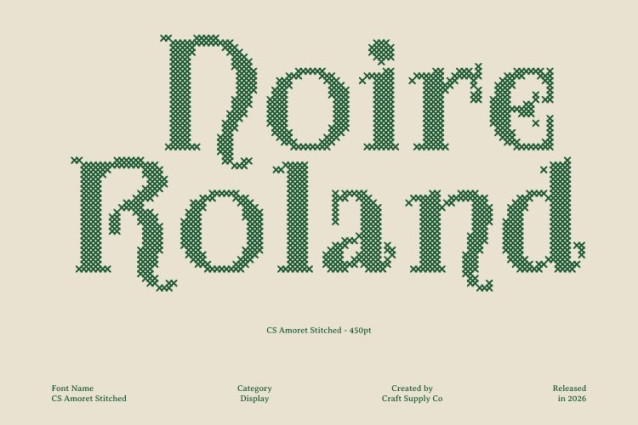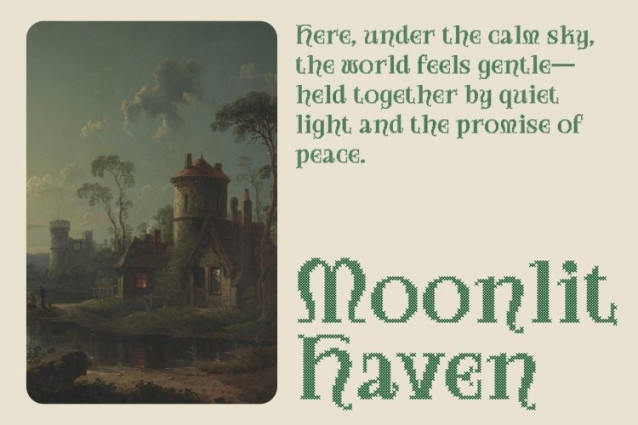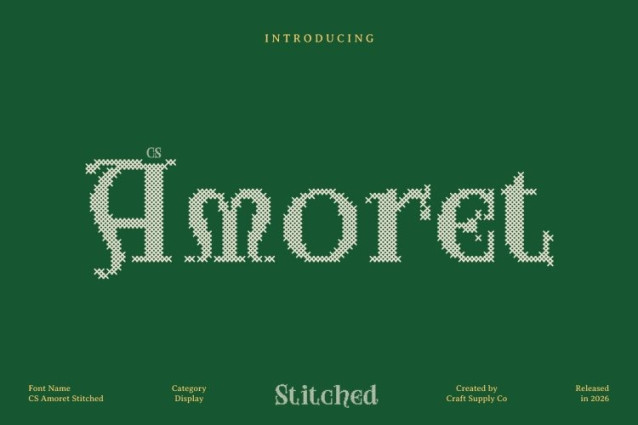
CS Amoret Stitched Font
CS Amoret Stitched Font is a display serif font that captures the elegance and artistry of the Art Nouveau movement. Its design features intricate, flowing lines and ornate serifs that blend refined sophistication with imaginative flair. Inspired by organic shapes and natural motifs, the graceful curves of each letterform create a visually captivating appearance.
Decorative Letterforms with Embossed Stitch Texture
The elegant curves and decorative flourishes of are complemented by a distinctive cross-shaped stitch pattern, creating an embossed and structured texture across every character. This stitched detail adds depth and tactility while introducing a classic, nostalgic, relaxed, and warm impression. The result is a font that feels both luxurious and personal, blending ornate design with a soft handcrafted aesthetic.
Sophisticated and Expressive Artistic Style
With its imaginative letterforms and flowing decorative structure, this font brings a unique artistic charm to any design. The balance between Art Nouveau elegance and stitched texture enhances its expressive character, making it visually rich while remaining graceful and refined.
Perfect for Luxury, Artistic, and Craft-Inspired Projects
This is ideal for prestigious branding, elegant invitations, editorial layouts, packaging, fashion logos, and artistic design projects. It also works beautifully for craft-themed designs, creative displays, and visual identities that seek a distinctive textured style.